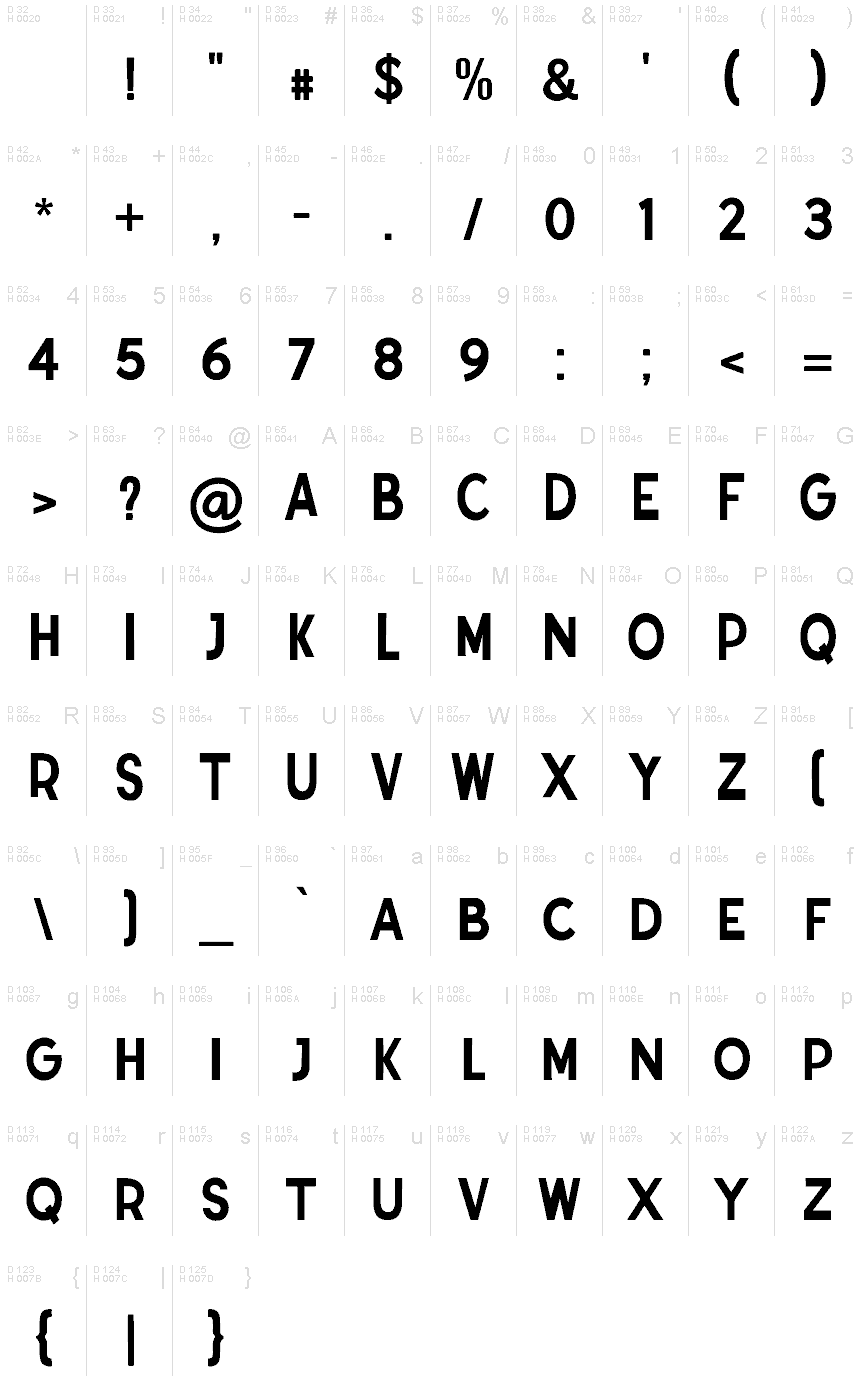
This is Publishable, a condensed display font designed by UI Creative with a modern aesthetic. This free font is simple with its minimalist design and its rounded corners, yet it carries a confident style inspired by both classic and contemporary typographic designs.
This multi purpose sans serif font can be used for logos, headlines, print items, websites and more. So go ahead and create any design with a professional touch.